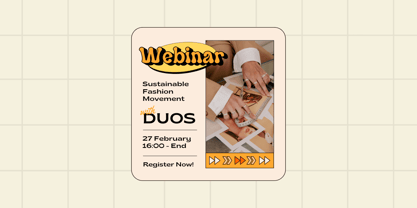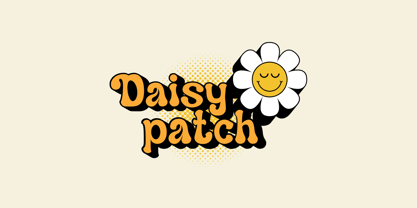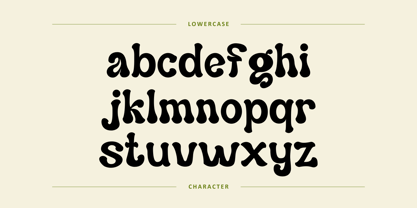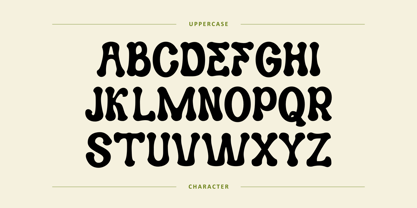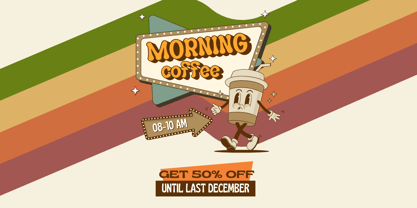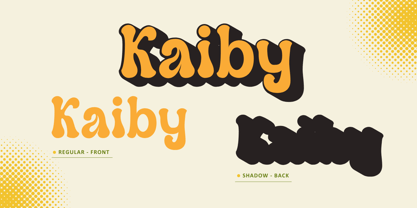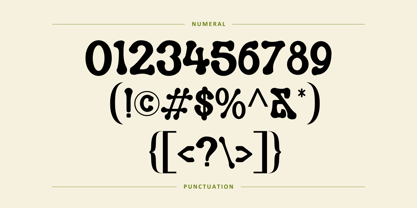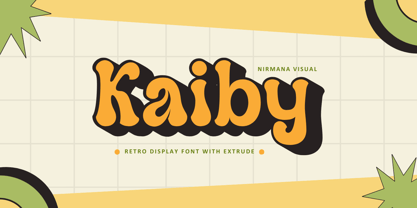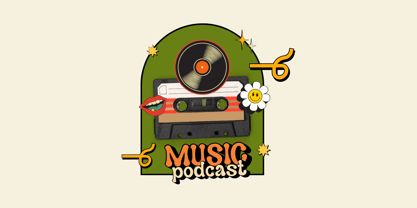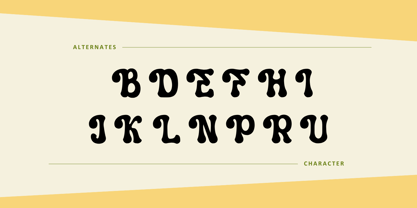
Kaiby
The Kaiby Font Family was designed by Sigit Dwipa and published by Nirmana Visual. Kaiby contains 2 styles and family package options. More about this family
Kaiby is a retro-inspired font with bold, blocky letters that evoke classic signage and vintage packaging. Its unique extruded shadow effect gives each letter a three-dimensional appearance, adding depth and visual interest to any design. Kaiby’s retro aesthetic, combined with its shadow effect, makes it perfect for headlines, posters, and branding that aim for a nostalgic, eye-catching look. The font’s playful style is ideal for projects needing a vintage touch with a bold, dynamic flair.